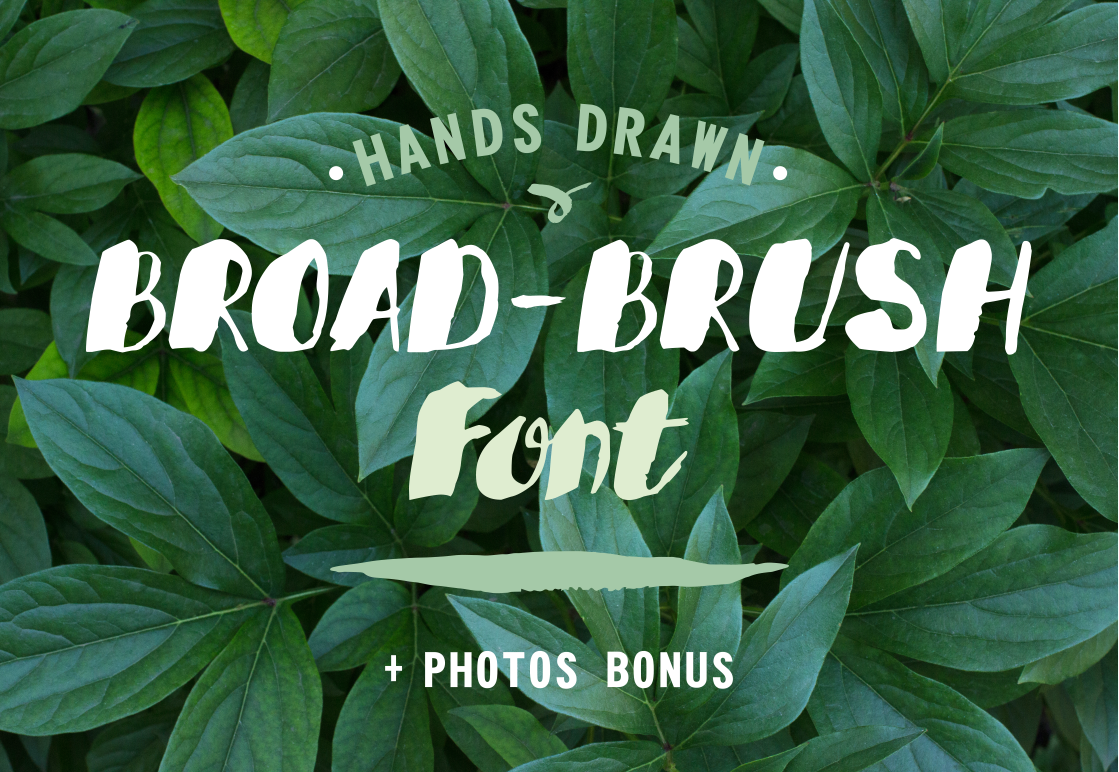
BROAD-BRUSH Font
I first drew the font and I really enjoyed doing it. And I hope you enjoy BROAD-BRUSH Font. It can be used in the invitations, business cards, corporate identity, posters, T-shirts, Web sites and other projects.